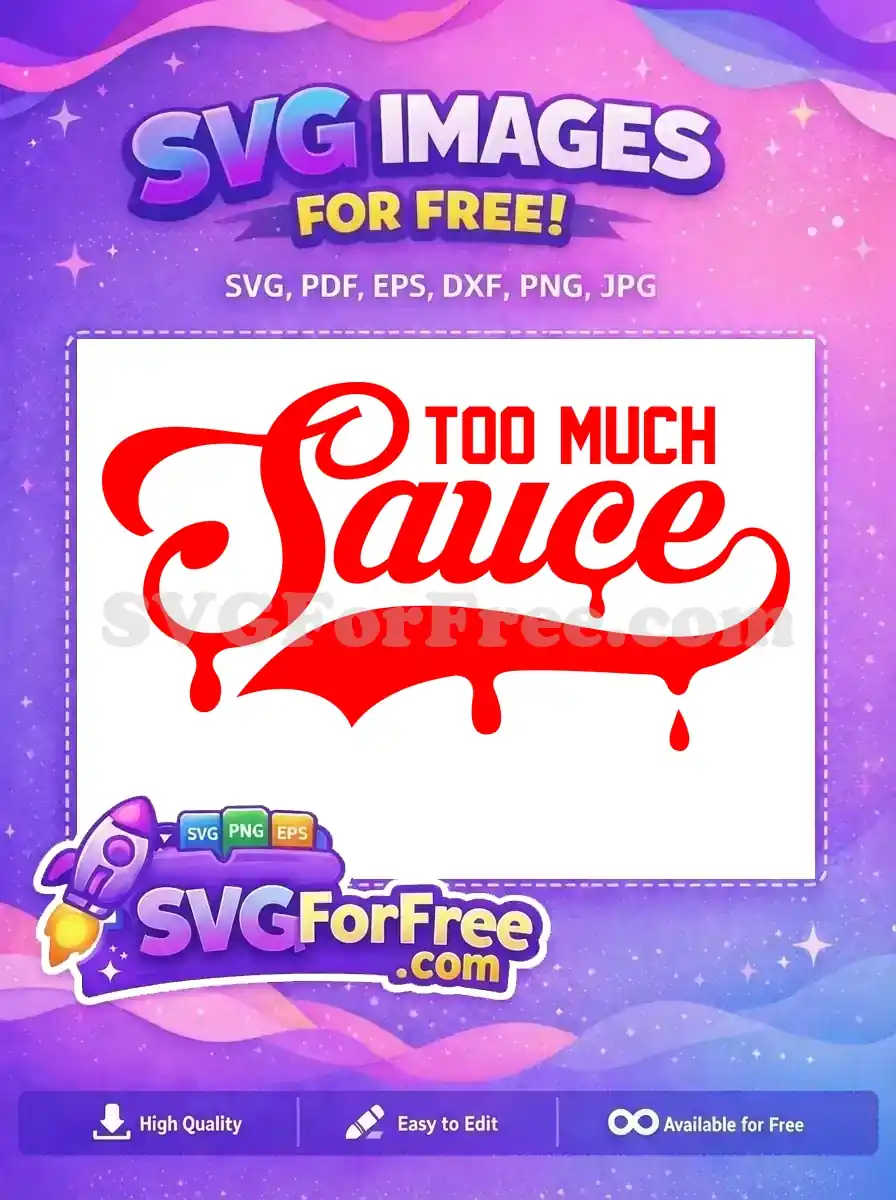
Unleash bold style with this free ‘TOO MUCH Sauce’ SVG design. Perfect for unique projects, offering a vibrant, dripping text aesthetic. Grab this free graphic now!